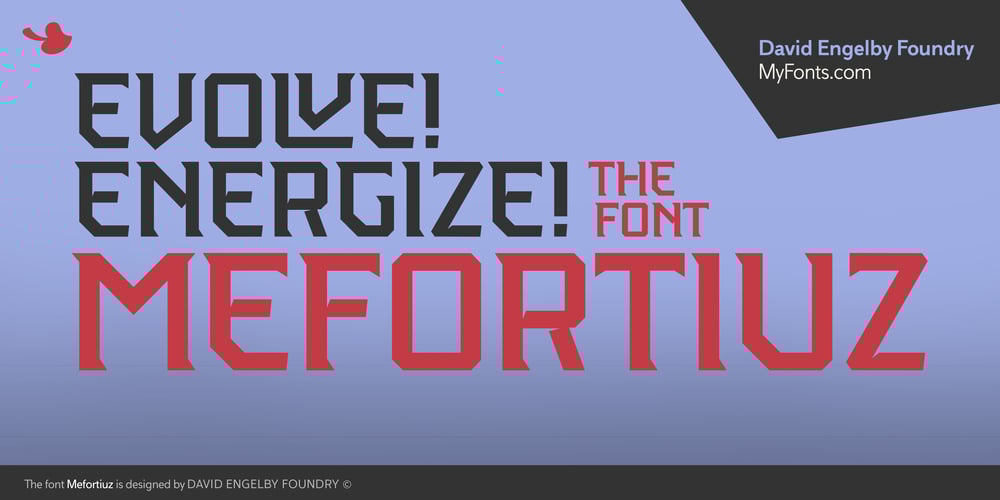
Mefortiuz
Mefortiuz font
Mefortiuz Font Family was designed by David Engelby and published by David Engelby Foundry. Mefortiuz contains 1 styles and family package options. MEFORTIUZ is a sturdy display font. It has many variations, alt glyphs, -inferior and superior numerals and an upper case alphabet set only.Use it for posters, signs, book covers, digital media promotion and other types of branding that needs at LOUD font!